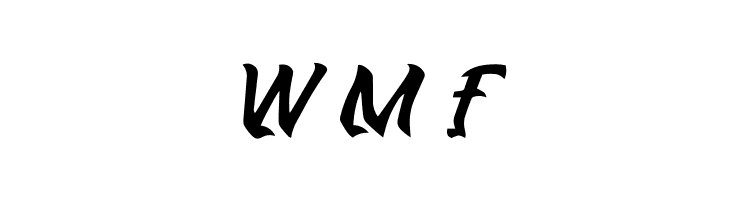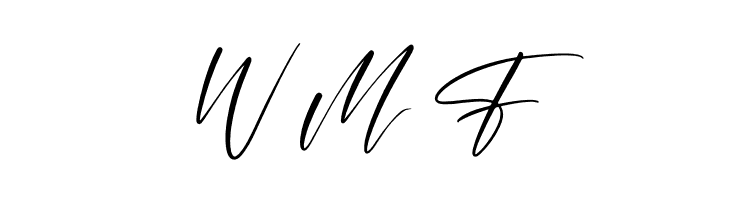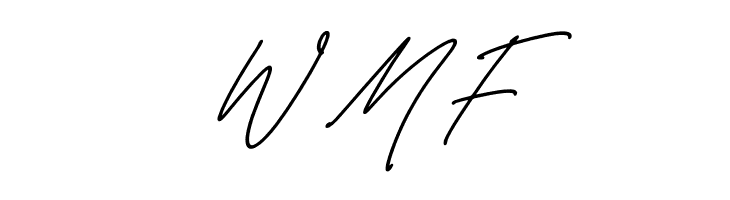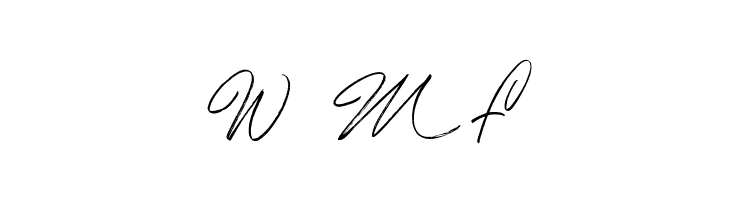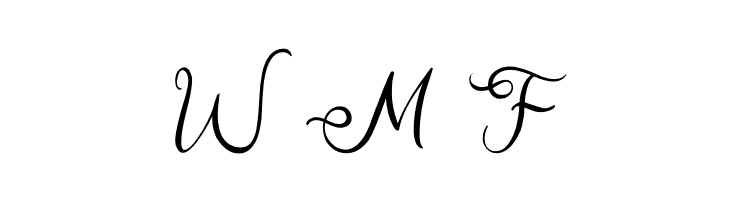
A bold, dynamic script font with calligraphic influences and elegant flourishes.
A bold, playful font with a hand-drawn, casual style.
A bold, playful script font with a handwritten style.
A lively, cursive font with smooth, flowing strokes and elegant connections.
A graceful script font with flowing, cursive letters and elegant swirls.
An elegant, flowing script font with graceful curves and artistic flair.
A refined italic font with smooth strokes and moderate contrast, exuding elegance and sophistication.
A graceful, cursive font with elegant, flowing lines.
An elegant, flowing script font with a natural handwritten style.
A graceful script font with elegant loops and swirls.